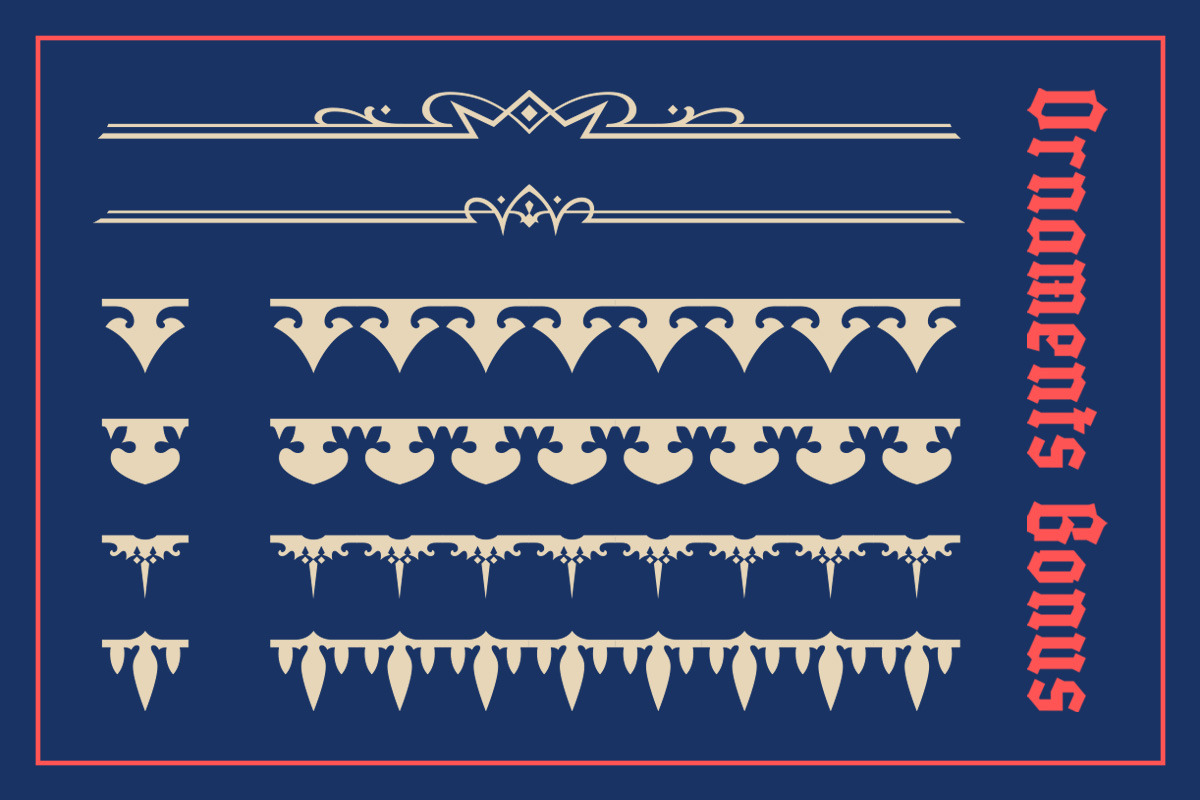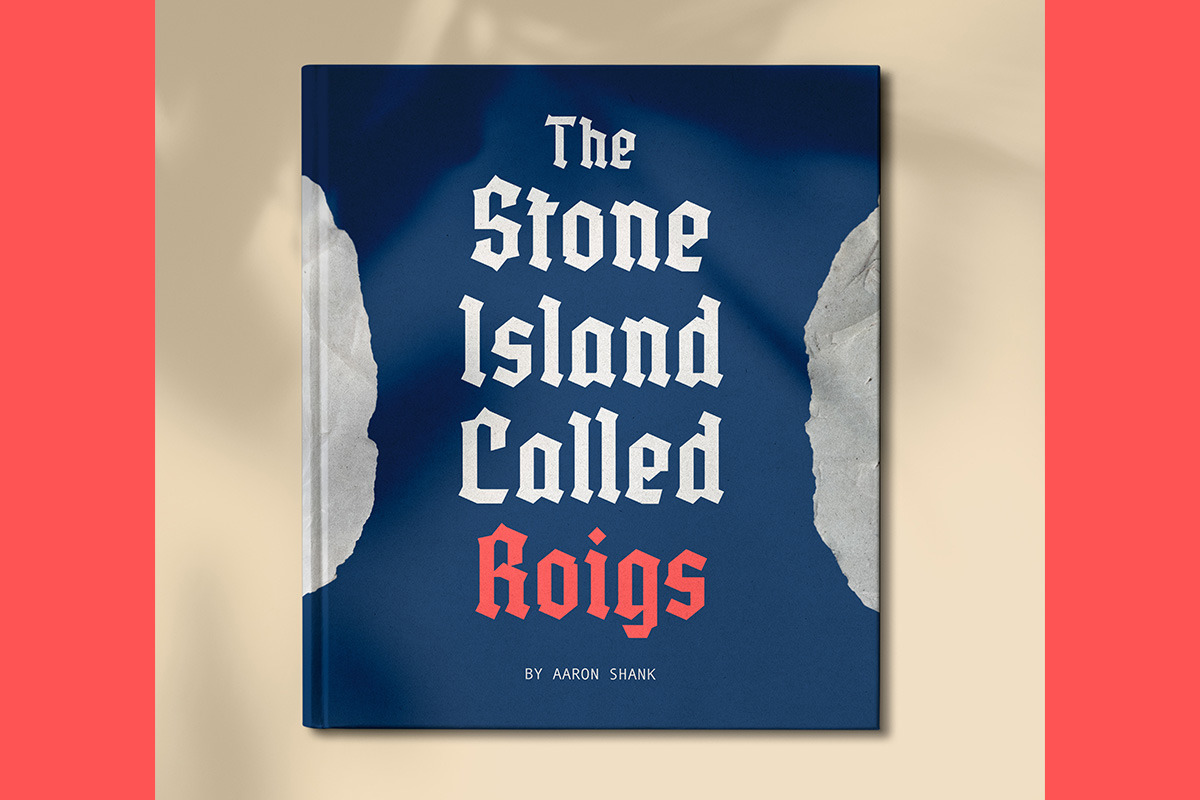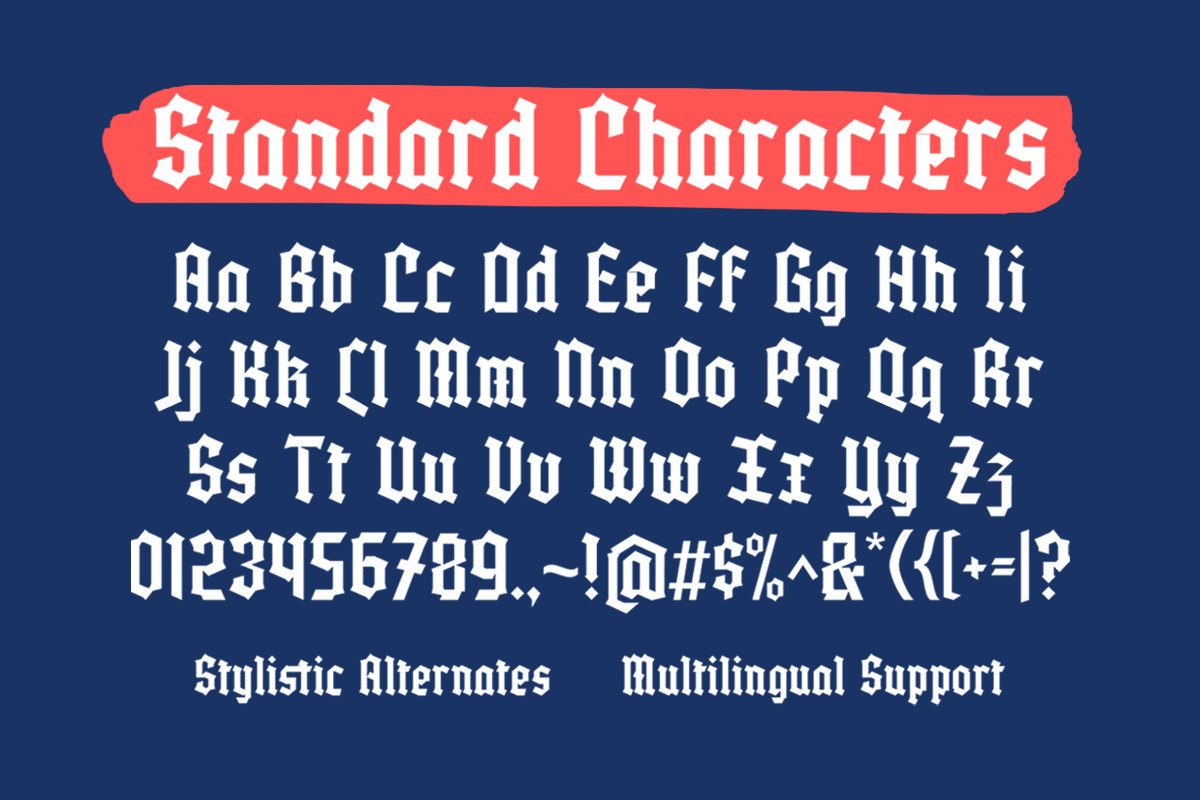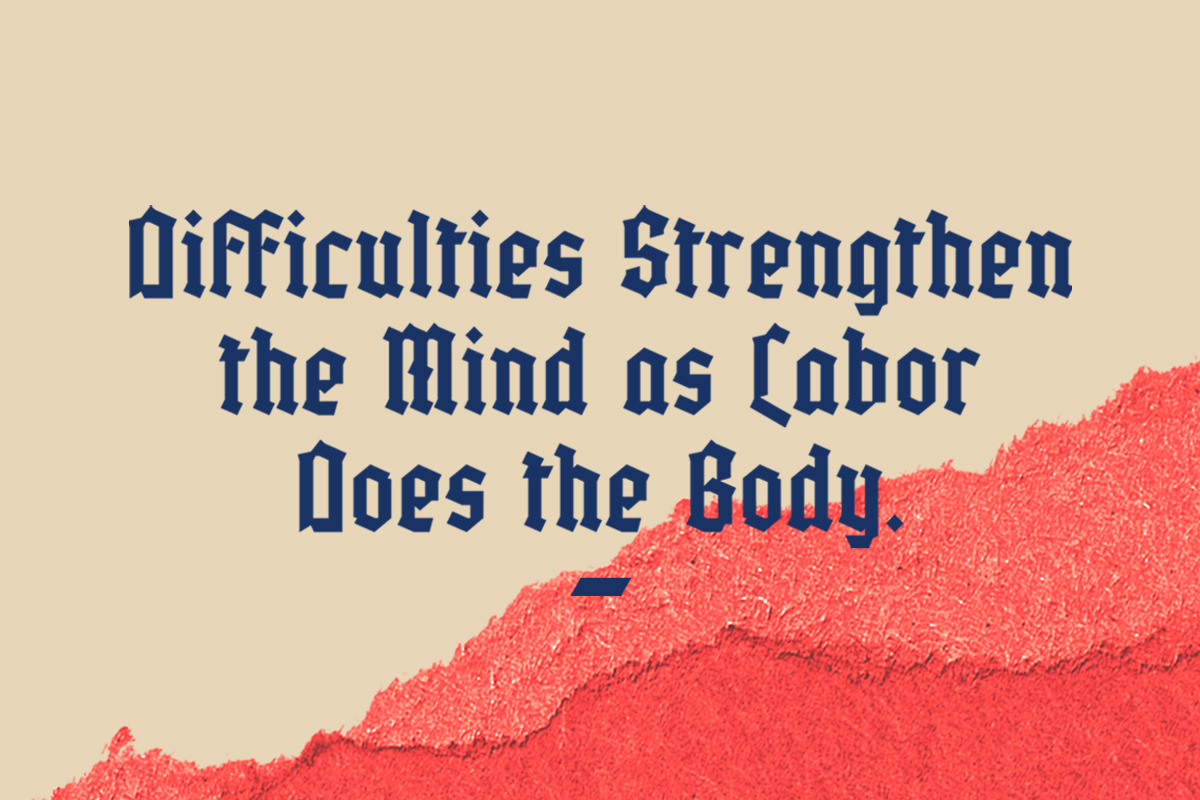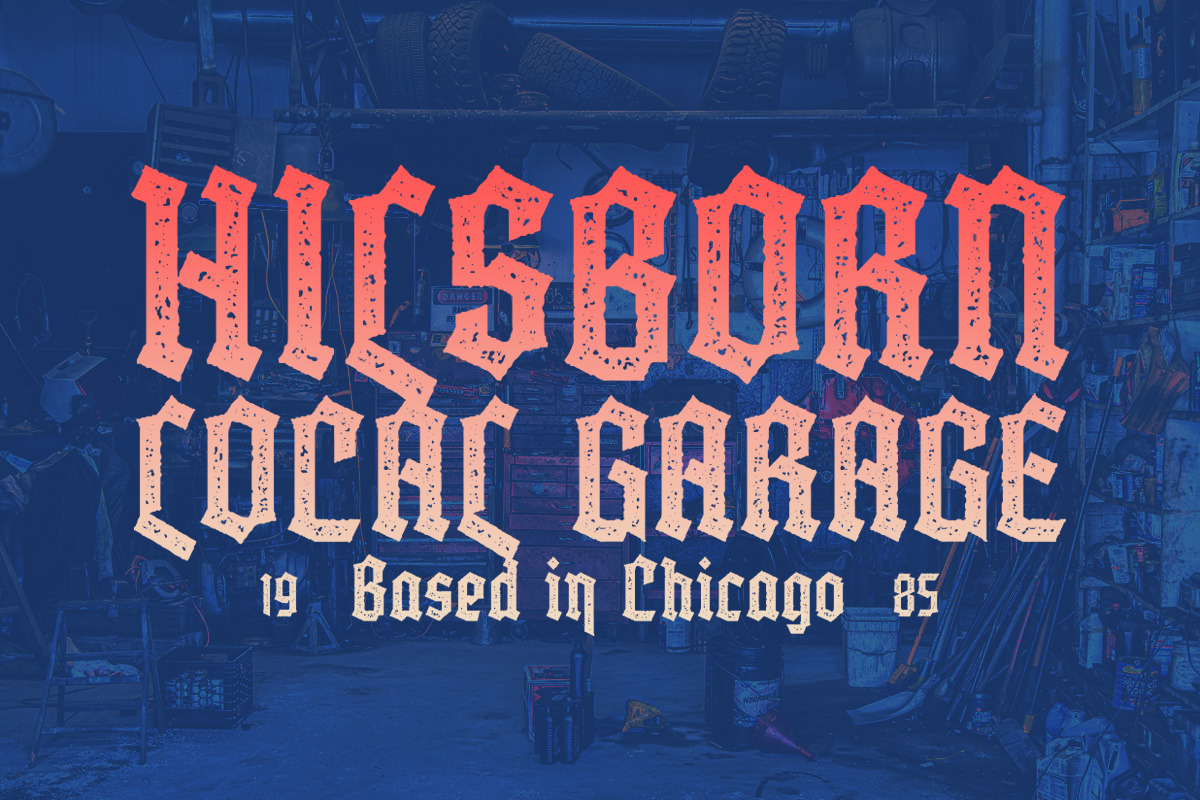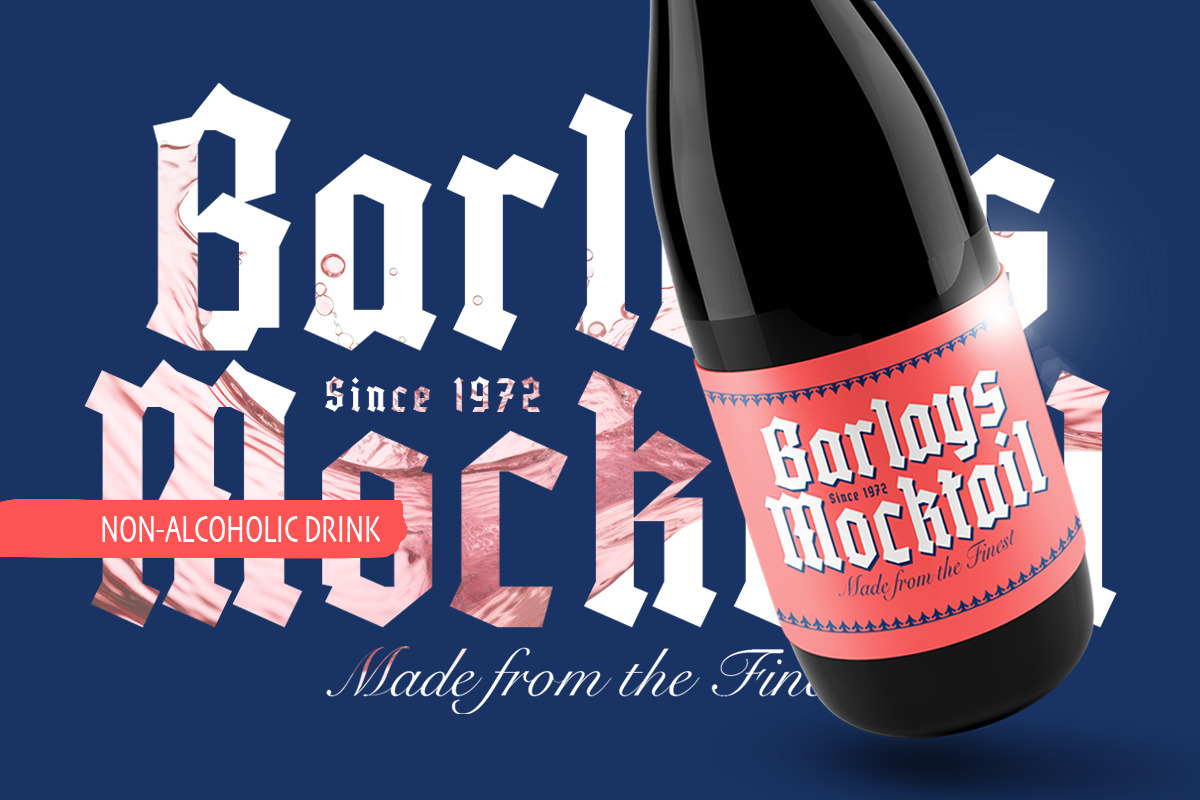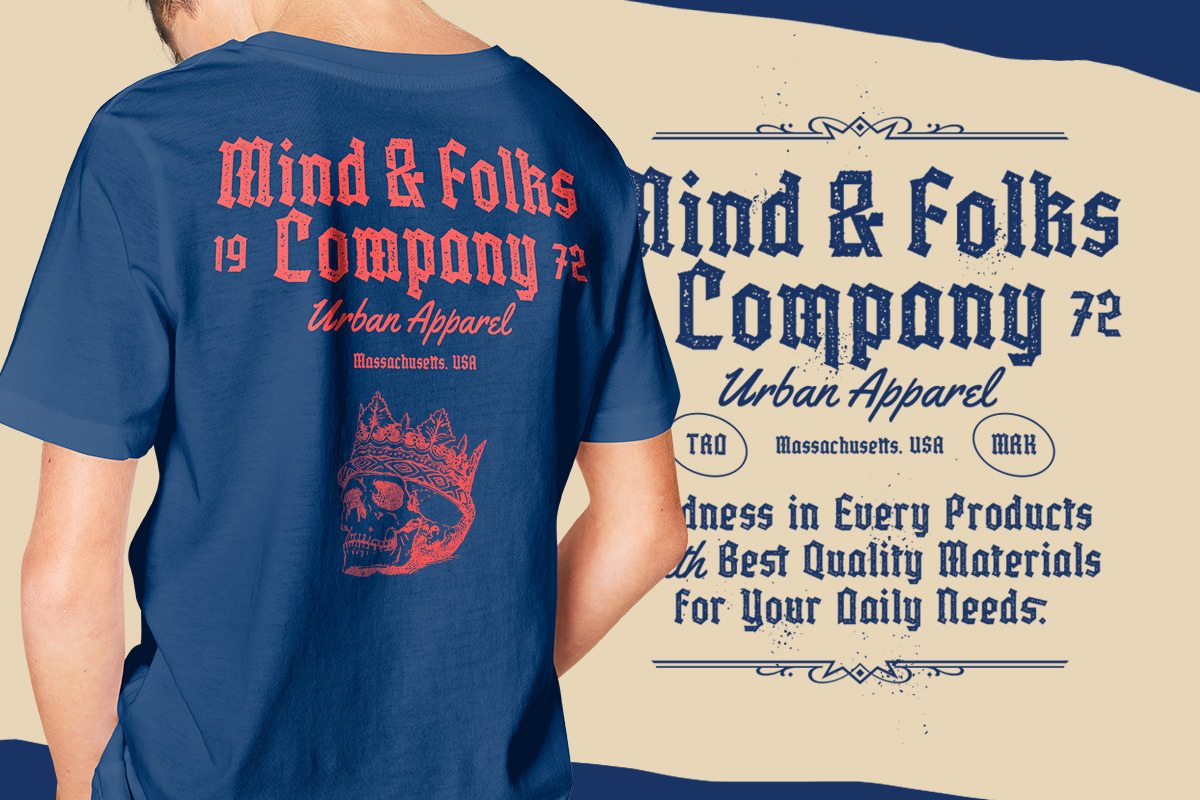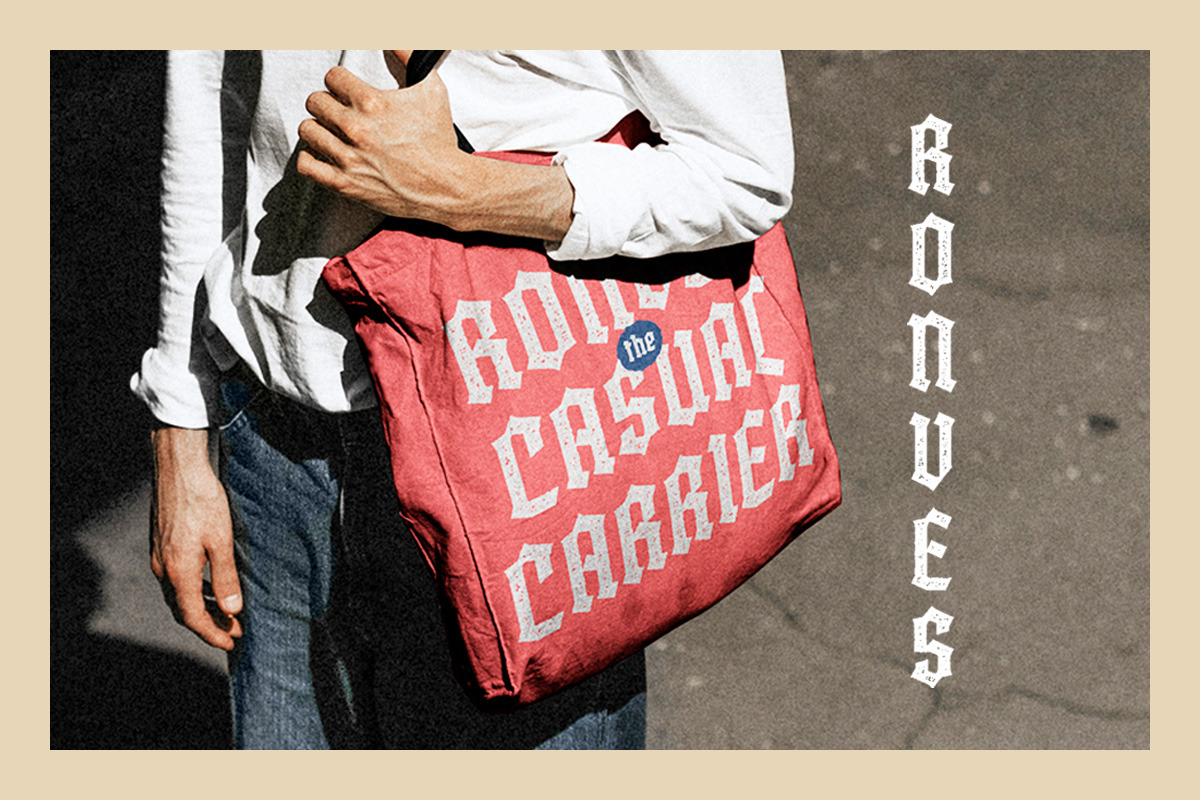
Miltorn - Display Blacklatter
Introducing, Miltorn - A display blackletter typeface in 2 style regular & stamp. It comes with ornament bonus. This type of font perfectly made to be applied especially in logo, and the other various formal forms such as Logo, Clothing, Fashion, Headline, or any type of advertising purpose.